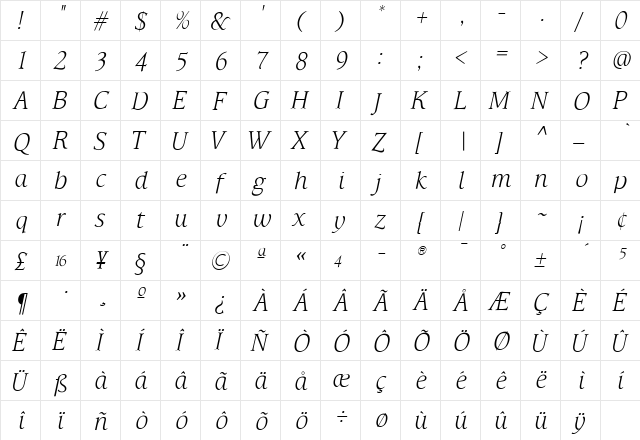
TFHabitat Italic
| Year | 1986 |
TFHabitat offers clean, dependable letterforms without strong stylistic allegiance, making it a practical choice for designers who need flexibility. The slanted form adds forward momentum and visual energy.
Pro Tip: Use TFHabitat for emphasis, pull quotes, and subheadings where its slanted energy can add rhythm to the layout.